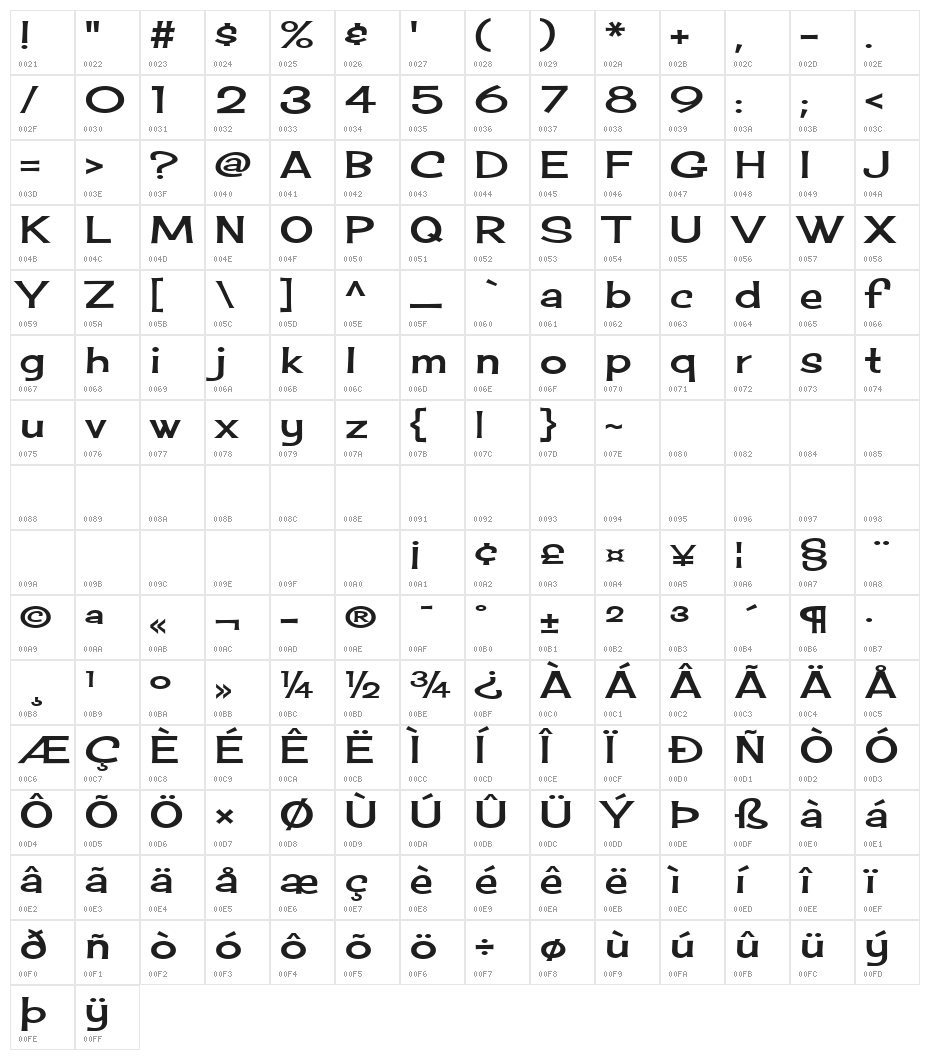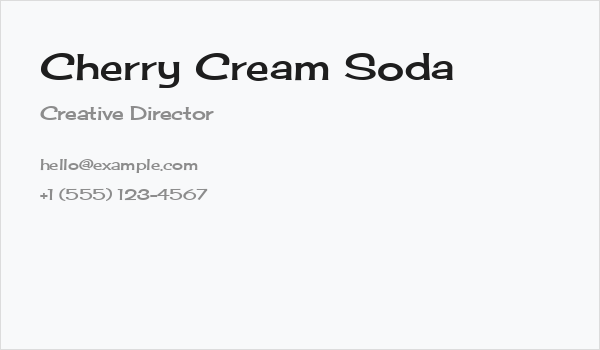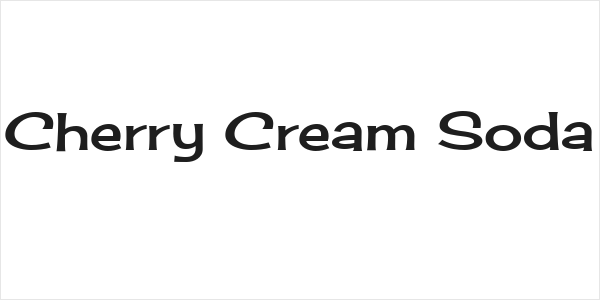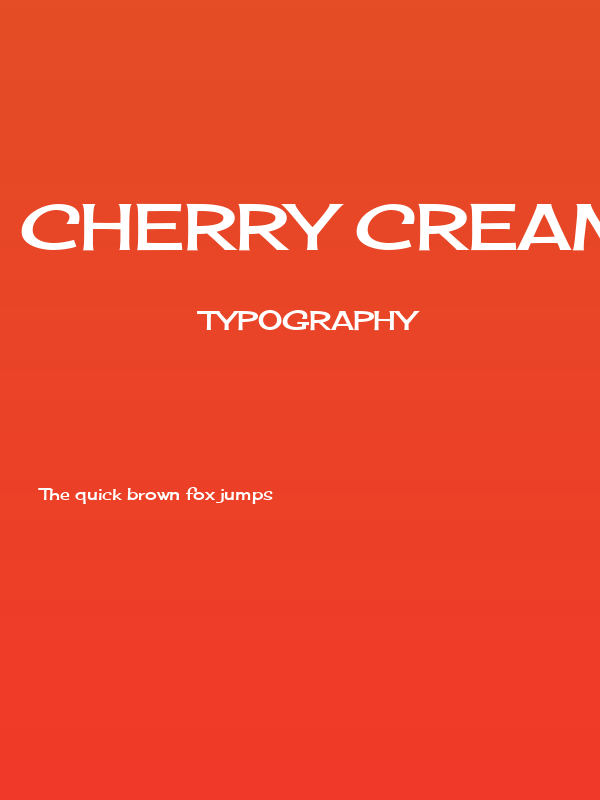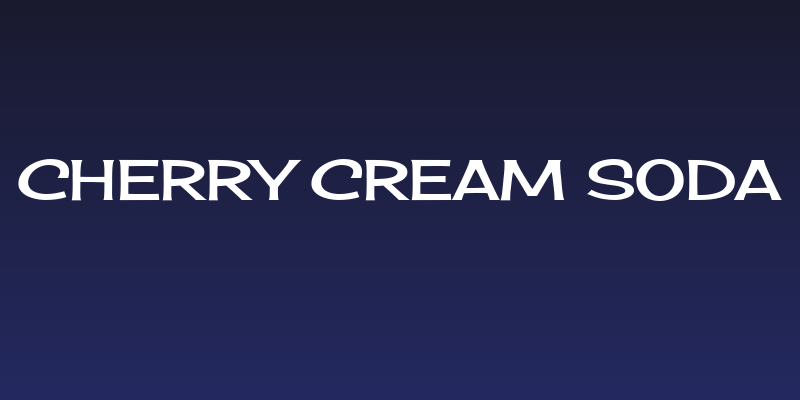
Cherry Cream Soda Font
Cherry Cream Soda Description
This font features a playful and bold design with a unique, rounded style. The characters have a smooth, flowing appearance, giving them a friendly and approachable feel. The uppercase letters are slightly wider, while the lowercase letters maintain a consistent height, creating a balanced look. The numbers and special characters are designed to match the overall aesthetic, with a quirky and fun twist. The font's boldness makes it stand out, while the rounded edges soften its impact, making it suitable for a variety of creative projects.
Overall StylePlayful, Modern
Proposed ProjectsIdeal for children's books, playful branding, posters, and creative advertising.